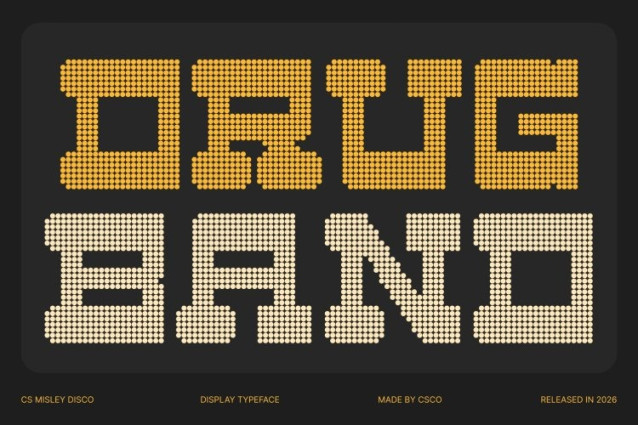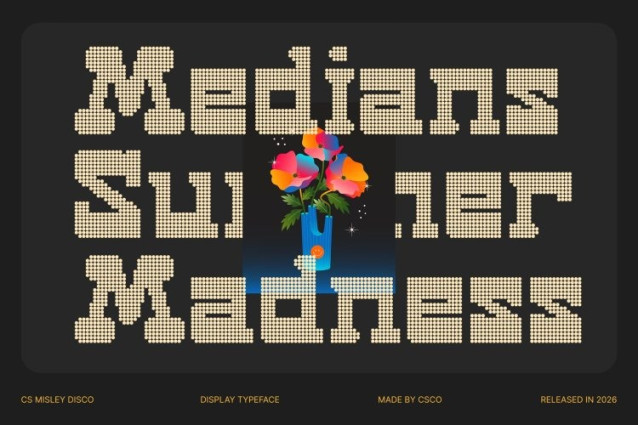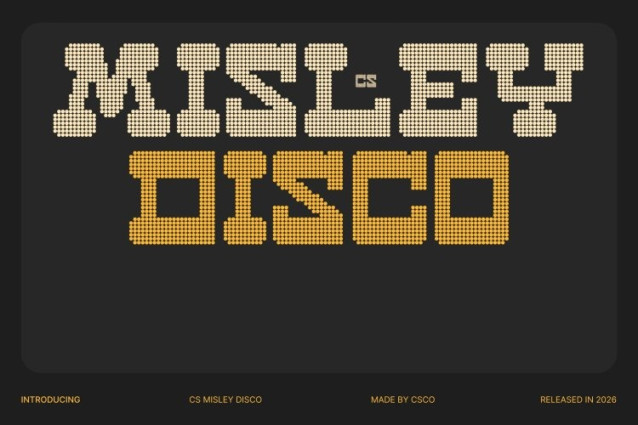
CS Misley Disco Font
CS Misley Disco Font – This font reimagines the rugged western display font into a lively dotted style inspired by disco lights and festive energy. While maintaining its bold slab serifs and wide western letterforms, each character is constructed from playful circular dots, creating a sparkling texture that feels vibrant and eye-catching. The result blends frontier strength with dance-floor glamour.
Wide Letterforms with Bold Visual Rhythm
The wide proportions and sturdy slab structure remain the backbone of the design, ensuring strong readability and a commanding presence. The dotted construction adds rhythm and movement, resembling glowing marquee bulbs or festive lights often seen in vintage signage. This combination gives the font a unique balance between rugged western character and joyful visual energy.
Vintage Western Charm with Playful Atmosphere
Inspired by cowboy-town signage and retro show posters, this dotted version introduces a cheerful twist to classic western typography. The dots create a dynamic and celebratory look, transforming the traditionally rugged aesthetic into something more playful, stylish, and full of personality.
Perfect for Posters, Events, and Creative Branding
This font works beautifully in posters, themed events, branding, packaging, and retro-inspired visuals. Whether used for western-themed parties, music posters, festival graphics, or creative branding, the font delivers strong character with a lively, festive tone.